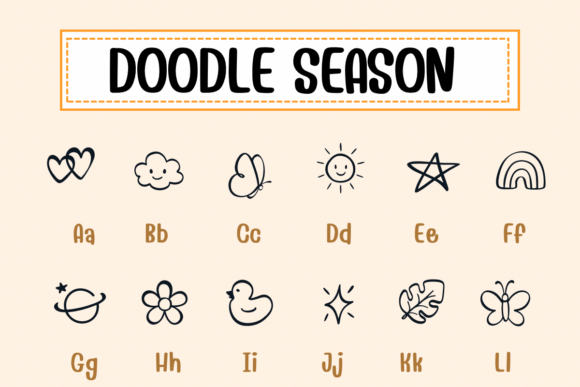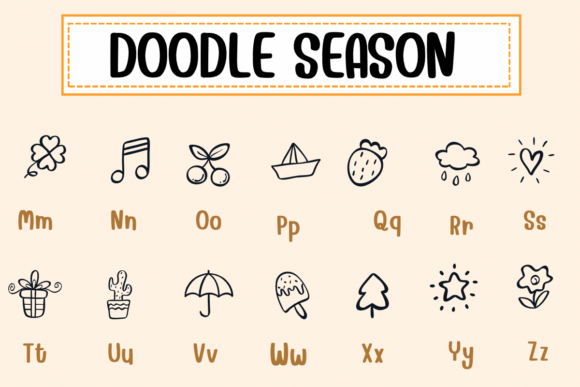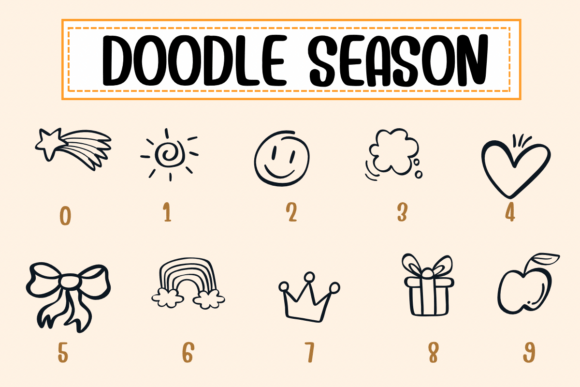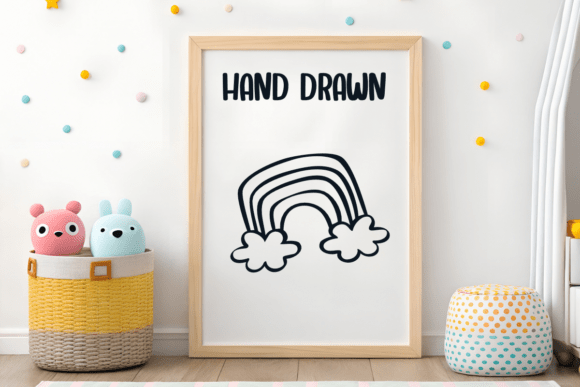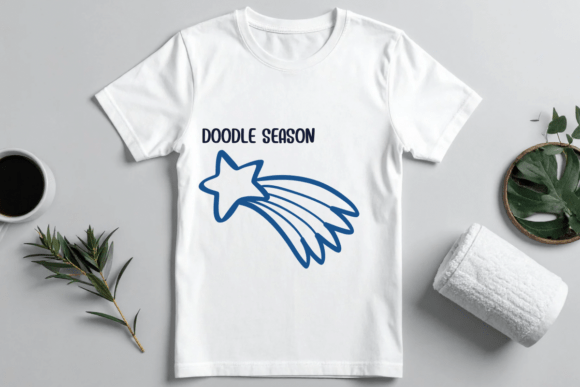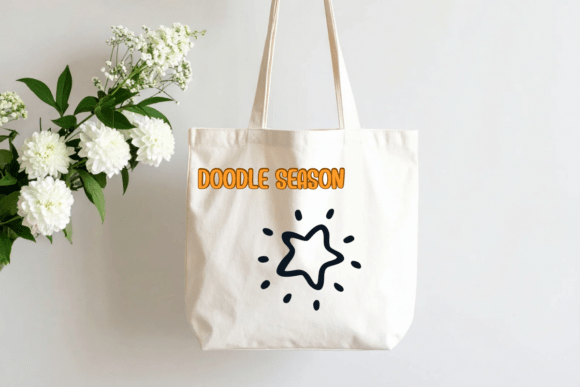
Introduction to Doodle Season Font Font
Fonts play a crucial role in design, and the Doodle Season Font font is a typeface that brings both character and versatility to any project. Whether you’re working on a branding project, a website, or a print design, the Doodle Season Font font offers a unique style that can elevate your work.
| 📌 Font Name | Doodle Season Font |
| 👤 Author | PraewDesigns |
Doodle season is a dingbats font with theme with a sketch style.
This font can enhance your creative projects such as wedding invitations, DIY, crafts, decorations, logos, and many other creative ideas .
Key Features of Doodle Season Font Font
Why Choose Doodle Season Font Font?
The Doodle Season Font font is more than just a typeface – it’s a design tool that helps you communicate your message with style and clarity. Its unique character set and versatile design make it suitable for a wide range of applications, from elegant invitations to bold headlines.
With its carefully crafted letterforms and balanced proportions, the Doodle Season Font font ensures readability and visual appeal across all mediums.
What makes Doodle Season Font font special?
The Doodle Season Font font stands out with its unique design, exceptional readability, and versatility across various design applications.